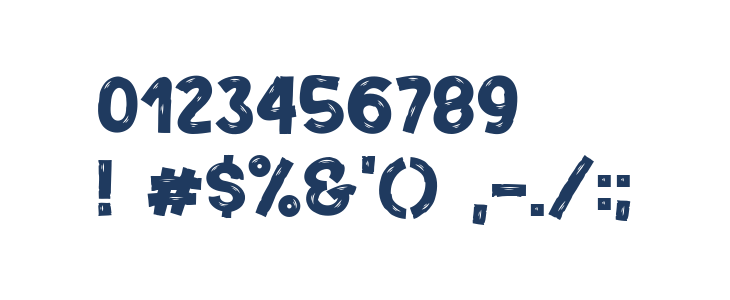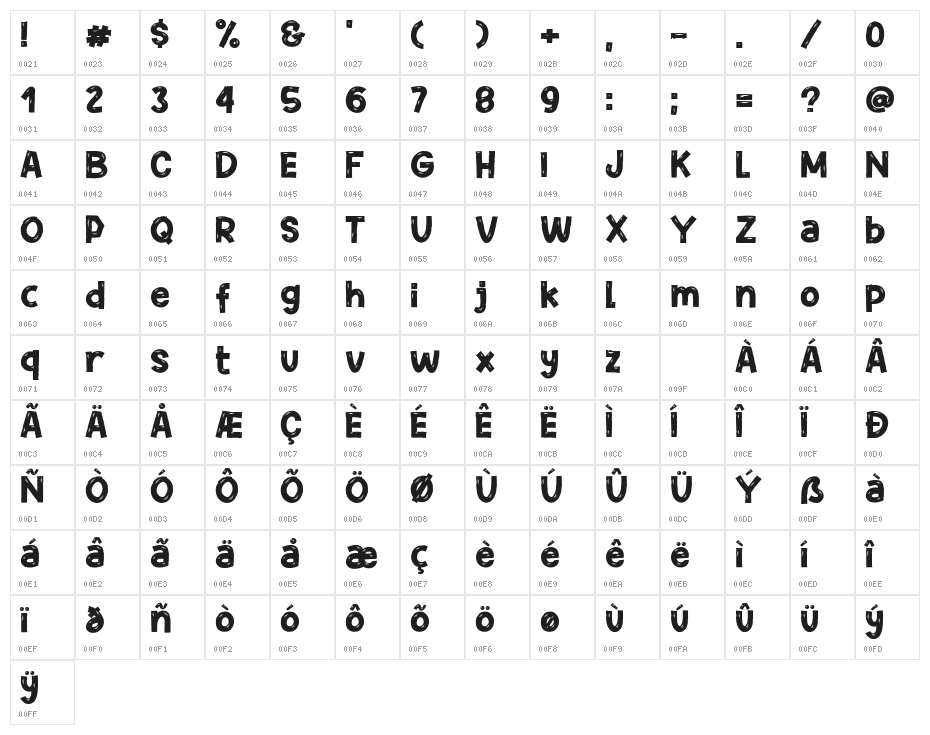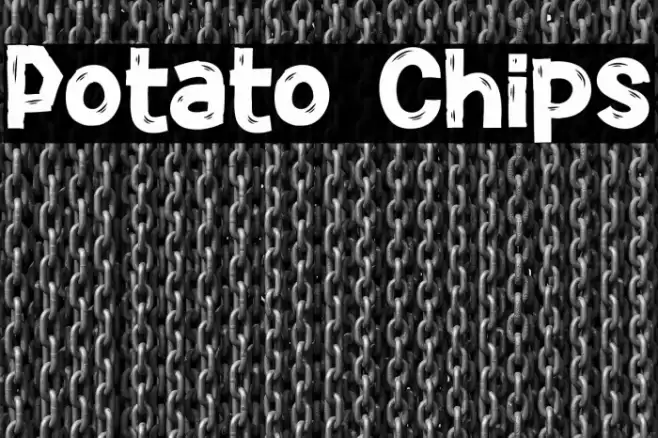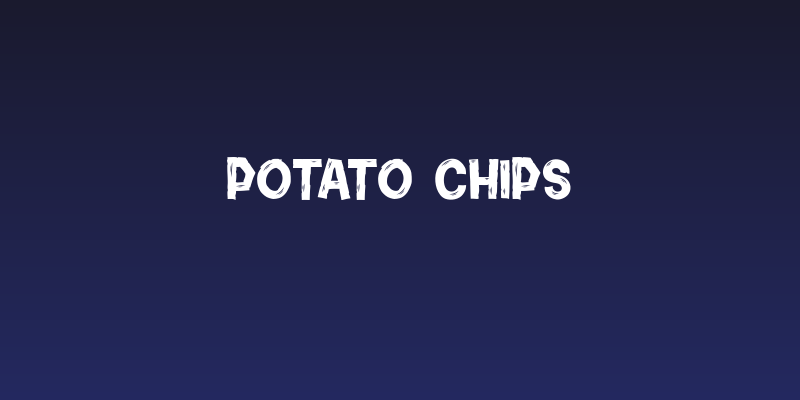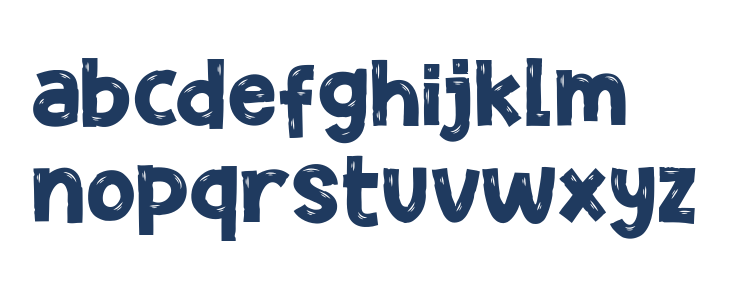
Potato Chips Font
Potato Chips Description
This font features a playful and bold design, characterized by its hand-drawn appearance and uneven strokes. The letters have a rough, textured look, giving them a dynamic and energetic feel. The uppercase and lowercase letters maintain a consistent style, with rounded edges and varying line thicknesses that add to the casual, informal vibe. The numerals and special characters follow the same aesthetic, ensuring a cohesive look across all glyphs. This font is ideal for projects that require a fun and approachable tone, such as children's books, comic strips, or playful branding materials.
| Overall Style | Playful, Casual, Hand-drawn |
| Proposed Projects | Ideal for children's books, comic strips, playful branding, and informal posters. |